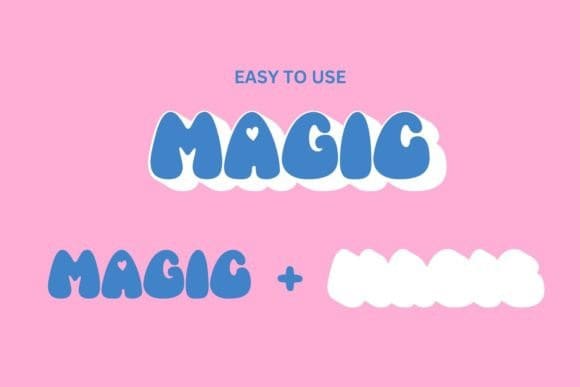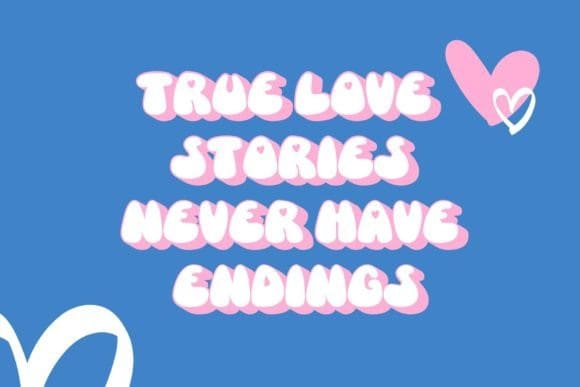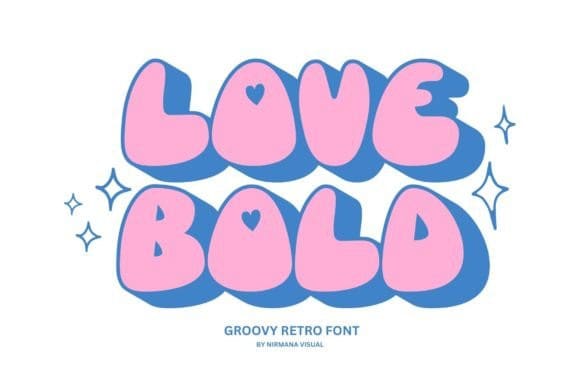
Love Bold Font
Love Bold Font, designed to take you back to the good old days. With its bold and playful design, this font is perfect for creating eye-catching designs that evoke nostalgia and fun.